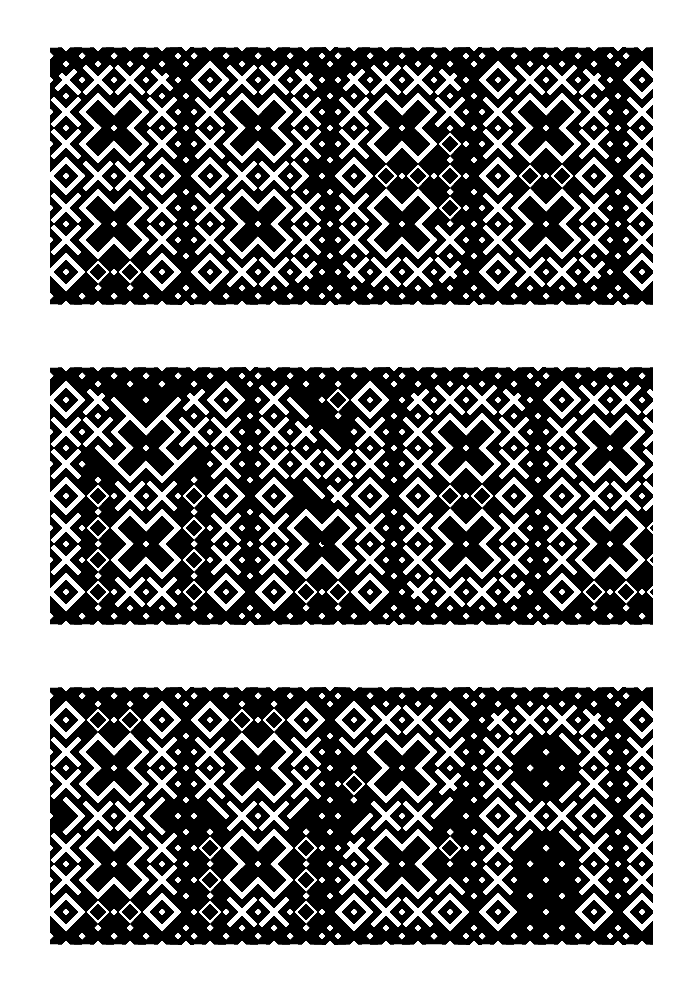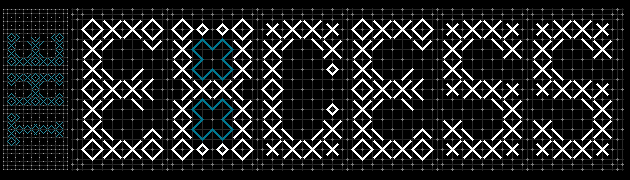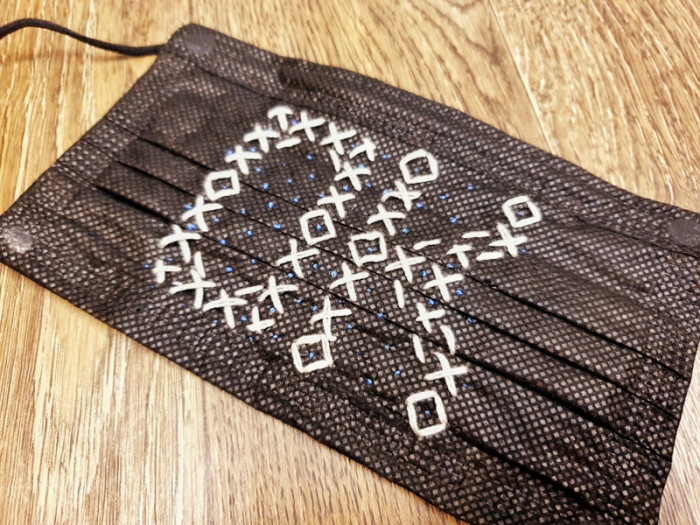
[Click Pixel in the font viewer, then click Shift+Pixel four times to view the font correctly]
I love it when fonts come together like this one.
It started as me thinking what can I do for the 'twenties' that isn't 1920s. (thalamic has done those before!). The idea that I was toying with was doing each letter on a grid of 20 parts (blocks, stripes, etc.). There is already a stripes font in development (which is unlikely to be shared any time soon). I thought maybe I could convert it to a 20 stripe version. But it's too optical illusion-y and requires blocks of free time at a stretch for me to visualize the letters, which I don't have. Then the idea came to just develop a new block that says 20 on it and use it as a pixel for some pixel font. Which led to thinking an XX is 20 in Roman numerals. So I thought develop a grid that reads XX in multiple ways and directions.
With that basic idea, I started tinkering with the fontstructor and soon realized that I will need a lot of bricks. That necessitated making custom X and O bricks. That gave rise to the basic grid block of 7x7 grid that can be used as something that can be "carved" to form various letters. Better in theory than practice. M is OK, but a 7 brick wide A is just too wide. Plus the larger Xs were too white. Had to create more custom bricks to take away some of the whiteness that left the X still visible. These additional custom bricks were cumbersome to make...mainly because of my limited ability to visualize which brick placed where in a 4x4 grid will create what shape but also because I was using quarter brick corner triangles which meant that each brick of the 4x4 grid was internally a 2x2 grid as well. So a 8x8 grid really with 64 internal smaller bricks. Some bricks required making a custom brick and then merging it with another custom brick several times over to have the correct custom brick. Of course, I didn't know if the pain-stakingly created custom brick will be appropriate or not.
Much experimentation later, finally figured out what to do with this idea. Once all the custom bricks were created and the basic look of the font developed, then it was just a matter of placing the bricks in the right place. Often times not even that as one letter was just a modified version of another letter...like D and 3 are just a modified B; L and F are modified E, etc.
This was supposed to be a joke entry that didn't take much time to make. It's still a joke entry not to be taken seriously...but it did take time...and provided puzzle-like geometric challenge to overcome. Very fun.
How could I not love fontstruct!?
That is some very nice and elegant ultra fine detail… 10/10
minimum, so excited to see that name again. Quite the uniquely intricate design and a clever take on the "Twentiescomp" idea!
An exciting process and outcome. I could imagine one of these glyphs as a life size tapestry.
I'm with the people. A tapestry alphabet that would look ultra cool, I'm seeing it! Nice to see you here again, dear Master.
Mesmerizing tapestry work. I think it deserves a demo picture. 10/10
The above sample is a disqualifier image. It was not typed out as a font. Rather it was built pixel by pixel in Photoshop.
[Windows/Photoshop was just not rendering the font crisp enough for my liking. I'd rather the sample be correct and get disqualified than stay in the running and have incorrect sample.]
That is some really nice stitchwork you've done there. Sideways, it looks like a stick figure…